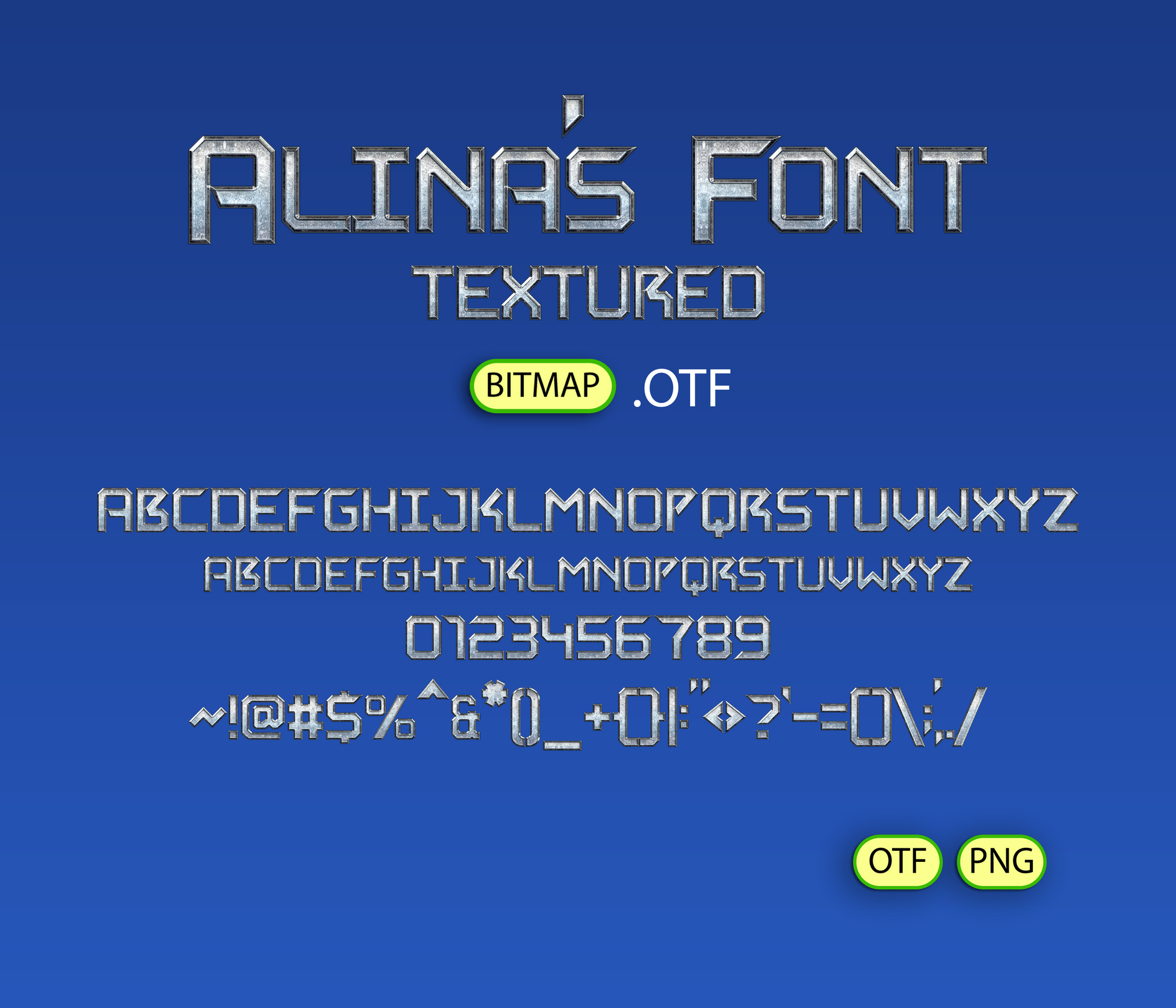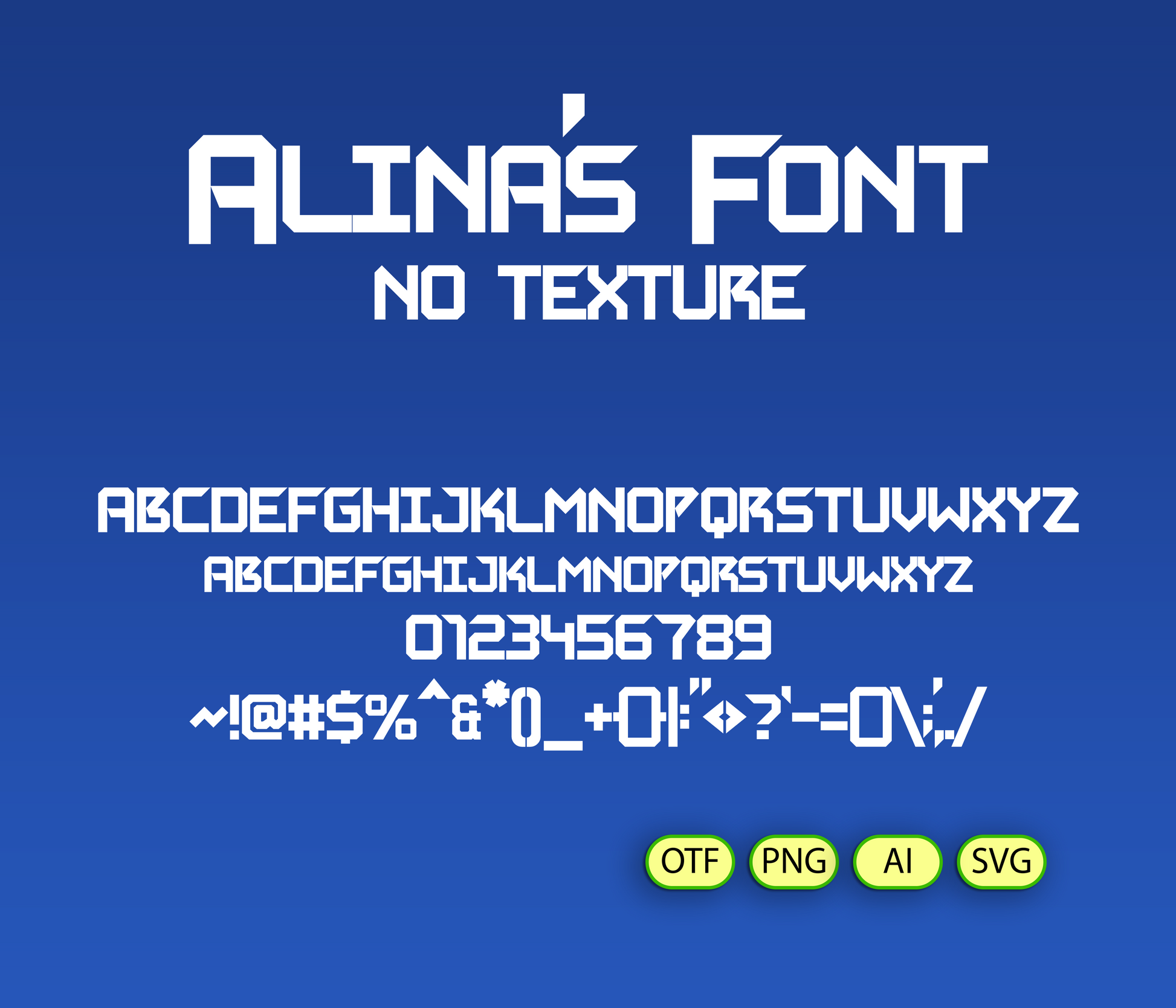
Cyber Enforcer Font Textured
Step into the futuristic world of law enforcement with our Cyber Enforcer font, capturing the essence of mechanical justice and urban crime-fighting. Perfect for sci-fi fans, cyberpunk creators, event organizers, and designers, this font brings the dynamic, metallic spirit of robotic peacekeeping to your projects. Create retro-futuristic materials, merchandise, or digital content with the high-tech energy of automated law enforcement.
Our Cyber Enforcer font features industrial, mechanical lines and chrome-like characters reflecting the world of cybernetic justice. Ideal for:
Our font pays tribute to the iconic world of cybernetic law enforcement, empowering your designs with its mechanical and authoritative spirit. Whether crafting promotional materials, designing merchandise, or adding a dynamic touch to personal projects, this font communicates the bold essence of future justice. Ready to inject cyber-tech power into your creations? This font is your key to exciting, impactful design.